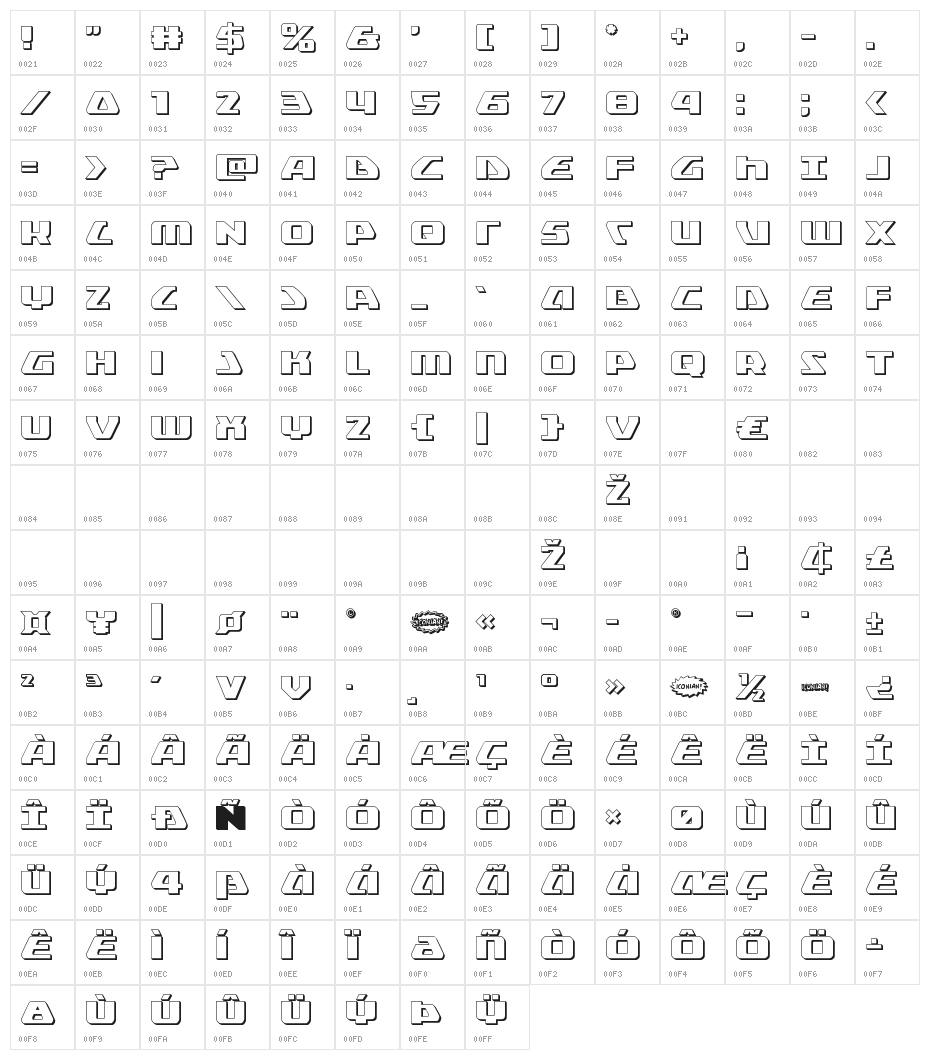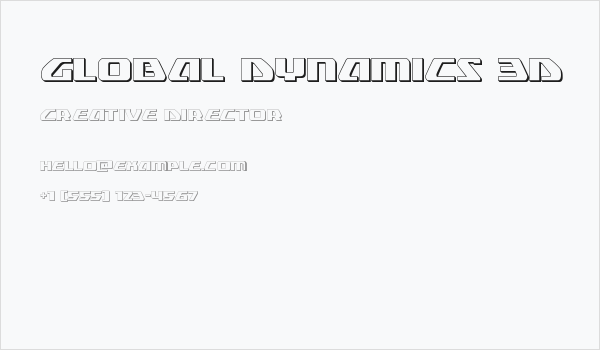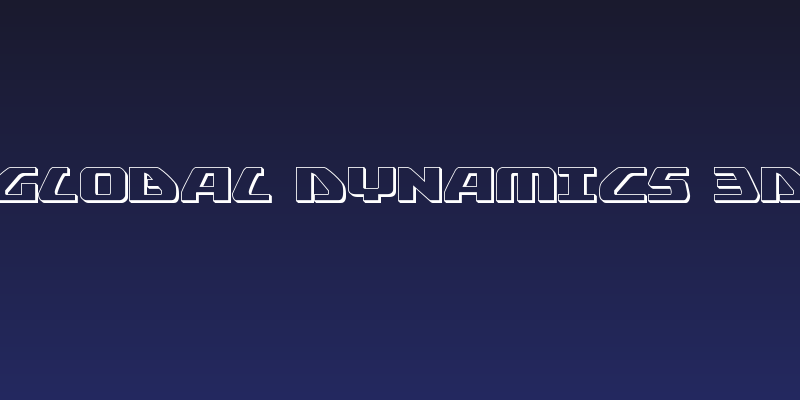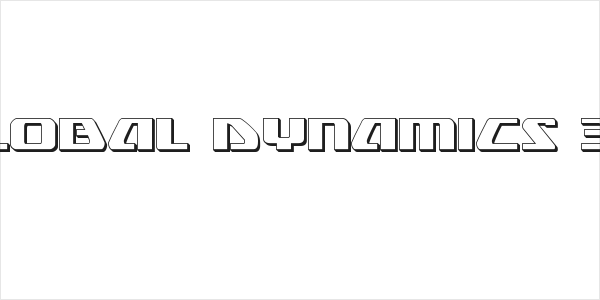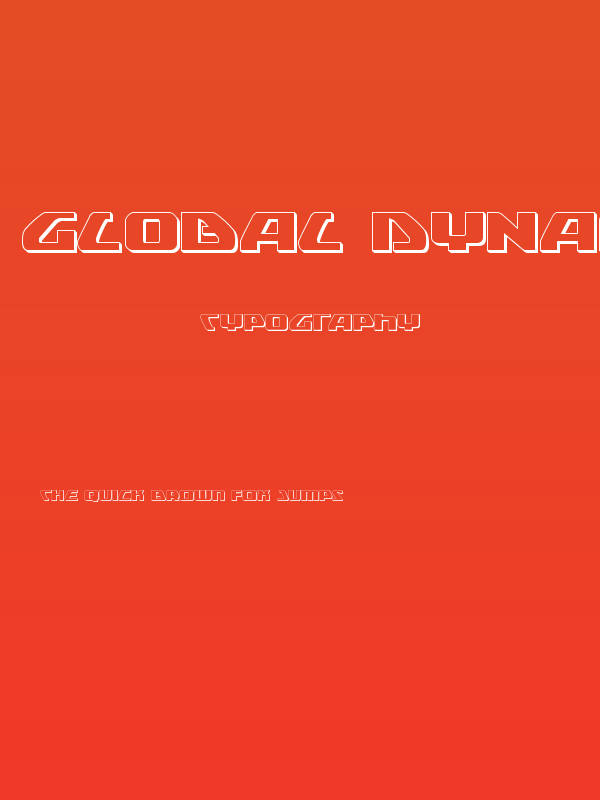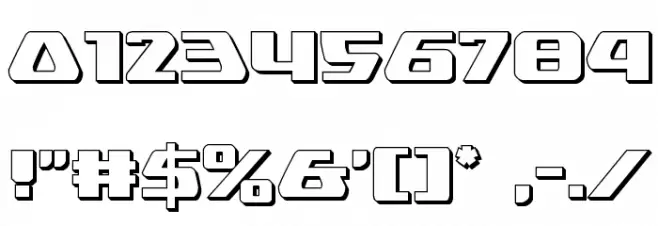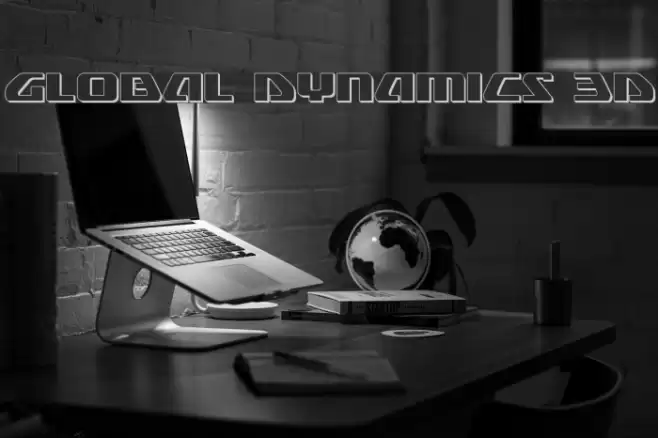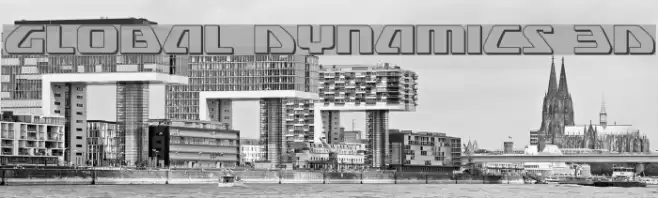
Global Dynamics 3D Font
Global Dynamics 3D Description
This font features a bold, geometric design with a futuristic and dynamic appearance. The characters are constructed with sharp angles and a three-dimensional effect, giving them a sense of depth and movement. The uppercase and lowercase letters maintain a consistent style, with the lowercase mirroring the uppercase in form. The numbers and special characters follow the same design principles, ensuring uniformity across the typeface. The overall look is modern and tech-inspired, making it suitable for projects that require a strong, impactful visual presence.
| Proposed Projects | Ideal for technology branding, sci-fi themed designs, video game titles, and futuristic posters. |